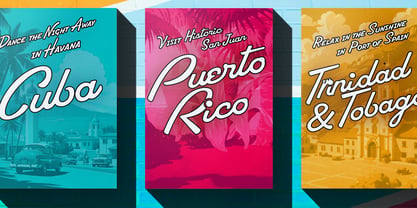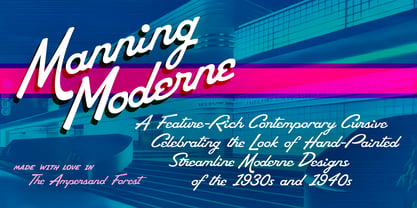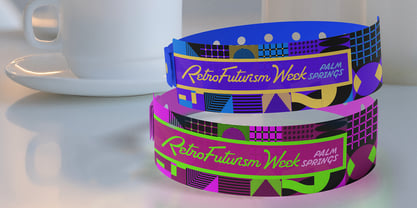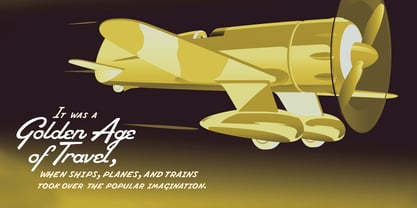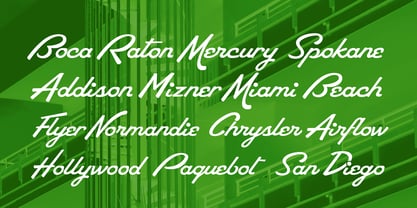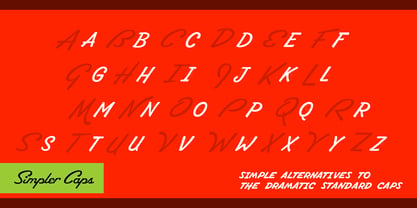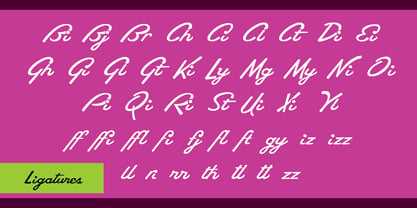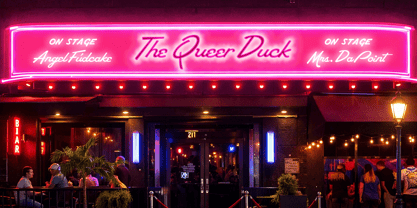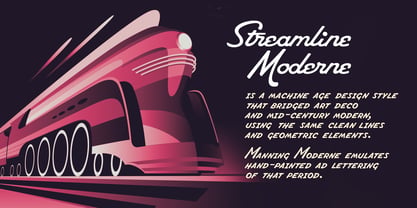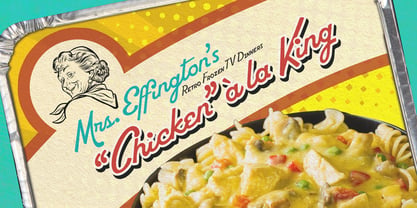
Manning Moderne
Die Schriftfamilie Manning Moderne wurde von DC Scarpelli entworfen und von The Ampersand Forest veröffentlicht. Manning Moderne enthält 1 Stile. Mehr über diese Familie
Inspired by vintage travel posters, Manning Moderne is a tribute to hand-lettered cursives from the Machine Era — specifically Streamline Moderne, the bridge between Art Deco and Mid-Century Modern. It has standard ligatures and terminal forms. It also has full alternate caps and small caps, for when something a little more legible is needed!
Manning Moderne